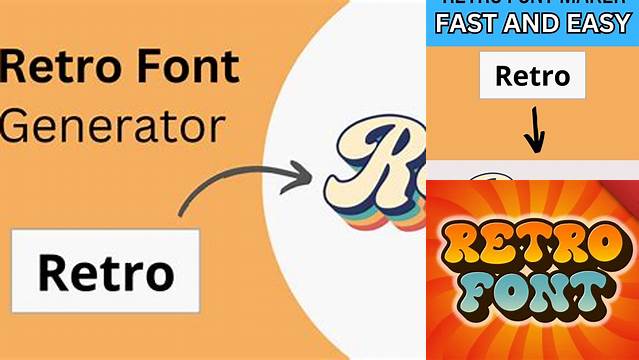
Free Retro Font Generator: Create Vintage Fonts Online
Are you looking to infuse your designs with a touch of nostalgia? Do you want to transport your audience back to the vibrant eras of the past? If so, you've come to the right place! In this comprehensive guide, we'll explore the world of free retro font generators, providing you with the knowledge and tools to create captivating vintage typography that will make your projects stand out.
What is a Retro Font?
Before we dive into the world of retro font generators, let's first define what exactly a retro font is. Retro fonts are typefaces that evoke the styles and aesthetics of past decades, typically ranging from the early 20th century to the 1980s. These fonts often feature distinctive characteristics such as bold serifs, script-like forms, and geometric shapes, reflecting the popular design trends of their respective eras. Think of the groovy fonts of the 1970s, the neon-infused typography of the 1980s, or the classic serif fonts of the mid-century. All of these styles fall under the umbrella of retro fonts.
Retro fonts can add a unique and nostalgic touch to your designs, making them ideal for a wide range of applications. Whether you're creating a vintage-inspired logo, designing a retro poster, or crafting website graphics that pay homage to the past, retro fonts can help you achieve the desired aesthetic. They can evoke feelings of nostalgia, warmth, and authenticity, making them a powerful tool for connecting with your audience on an emotional level. The key is to understand the nuances of different retro styles and how they can be effectively used in your designs.
Different eras have their signature fonts. For instance, Art Deco fonts, characterized by their geometric shapes and elegant lines, were prominent in the 1920s and 1930s. The mid-century modern era (1940s-1960s) saw the rise of clean, sans-serif fonts with a touch of playfulness. The 1970s brought bold, script-like fonts with a groovy vibe, while the 1980s were all about neon-infused, futuristic typefaces. Understanding these historical contexts can help you choose the right retro font for your project and ensure that it accurately reflects the desired era. Using a font that doesn't quite match the era you're trying to evoke can result in a design that feels off or inauthentic. It's the little details like these that can make a big difference in the overall impact of your work.
Why Use a Retro Font Generator?
Now that we've established what retro fonts are, let's explore why you might want to use a retro font generator. While you can certainly find pre-made retro fonts online, a font generator offers a unique level of customization and control. With a generator, you can create fonts that perfectly match your specific design needs, ensuring that your typography is truly one-of-a-kind.
One of the primary advantages of using a retro font generator is the ability to tailor the font to your project's specific aesthetic. You can adjust various parameters, such as font weight, letter spacing, and stylistic alternates, to achieve the exact look and feel you're going for. This level of customization is especially valuable when you need a font that complements other design elements or reflects a specific brand identity. For instance, you might need a slightly bolder version of a retro font to ensure it stands out on a busy background, or you might want to adjust the letter spacing to create a more modern or vintage feel. The ability to fine-tune these details allows you to create a font that is not just retro, but also perfectly suited to your project.
Another compelling reason to use a retro font generator is the opportunity to experiment with different styles and variations. Many generators offer a wide range of options and settings, allowing you to explore various retro aesthetics and create fonts that blend different eras or styles. This can be particularly useful when you're unsure of the exact retro vibe you want to achieve or when you're looking to create something truly unique and innovative. You can try out different combinations of serifs, weights, and letterforms to see what works best, and you might even stumble upon a completely new retro style that you hadn't considered before. This experimental process can be incredibly rewarding and lead to some truly creative and unexpected results.
Finally, using a retro font generator can be a great way to learn about typography and design principles. By experimenting with different settings and options, you can gain a deeper understanding of how font choices impact the overall look and feel of a design. You'll learn about the nuances of different retro styles, the importance of letter spacing and kerning, and the impact of font weight and style. This knowledge can be invaluable in your future design projects, as it will enable you to make more informed decisions about typography and create more visually compelling designs.
Where to Find Free Retro Font Generators
So, where can you find these magical free retro font generators? The good news is that there are several excellent options available online. Let's explore some of the most popular and user-friendly generators:
FontStruct: FontStruct is a web-based font editor that allows you to create your own fonts using geometric shapes. While not strictly a retro font generator, FontStruct's grid-based system makes it perfect for creating pixelated or geometric retro fonts. You can easily design fonts reminiscent of classic video game typography or the bold, geometric styles of the Art Deco era. FontStruct's intuitive interface and extensive library of shapes make it a great choice for both beginners and experienced designers. Plus, the platform has a vibrant community of users who share their creations, providing a wealth of inspiration and resources.
Calligraphr: If you're looking for a more handwritten or script-like retro font, Calligraphr is an excellent option. This web-based tool allows you to upload your own handwriting and turn it into a font. You can then customize various aspects of the font, such as letter spacing and kerning, to achieve the desired look. This is perfect for creating retro fonts that have a personal and authentic touch, reminiscent of vintage postcards or handwritten letters. The process is surprisingly simple: you print out a template, fill it in with your handwriting, scan it back into Calligraphr, and the tool will generate a font file that you can use in your projects. It's a fantastic way to add a unique and personal touch to your designs.
Free retro font generators are powerful tools that can help you create stunning vintage typography for your design projects. By understanding the principles of retro font design and utilizing the available generators, you can craft unique and captivating fonts that evoke the nostalgia and charm of past eras. So, go ahead and experiment, have fun, and create some truly memorable retro designs! Remember, the key is to research, experiment, and pay attention to detail. With a little effort and creativity, you can create retro typography that will transport your audience back in time and make your designs truly stand out. Happy font generating, guys!